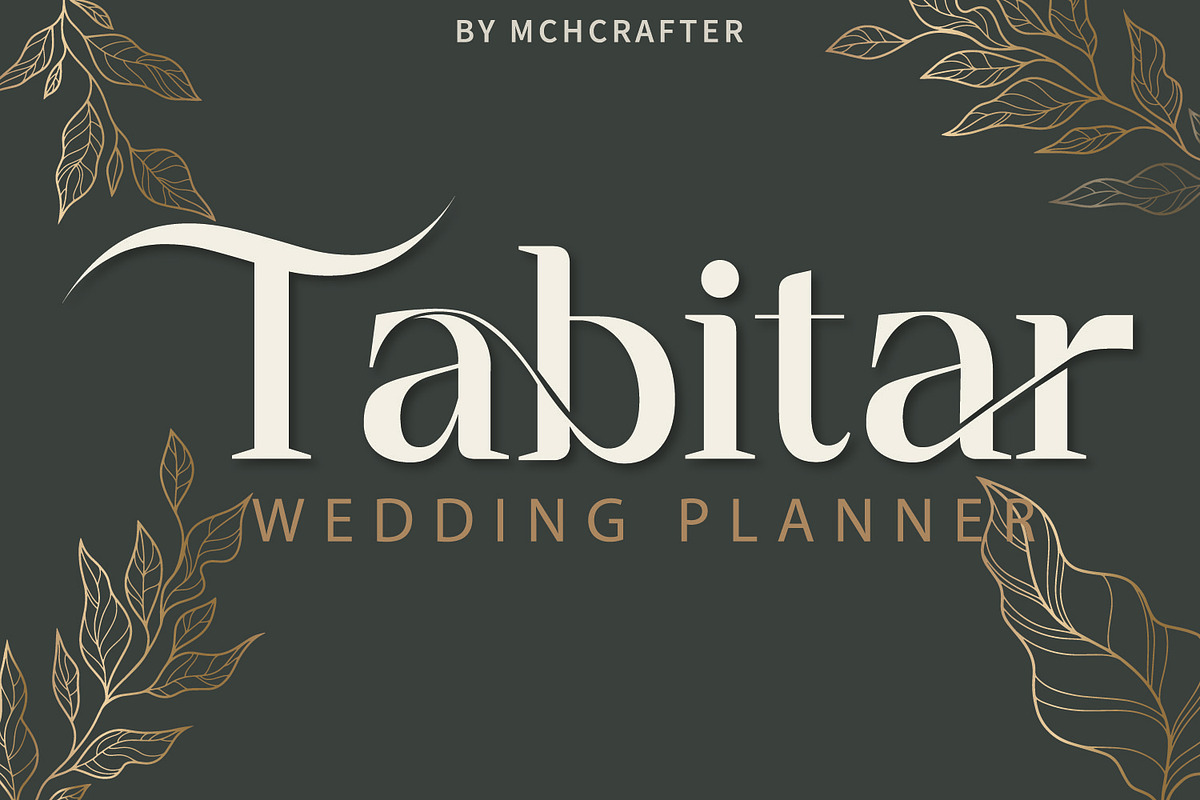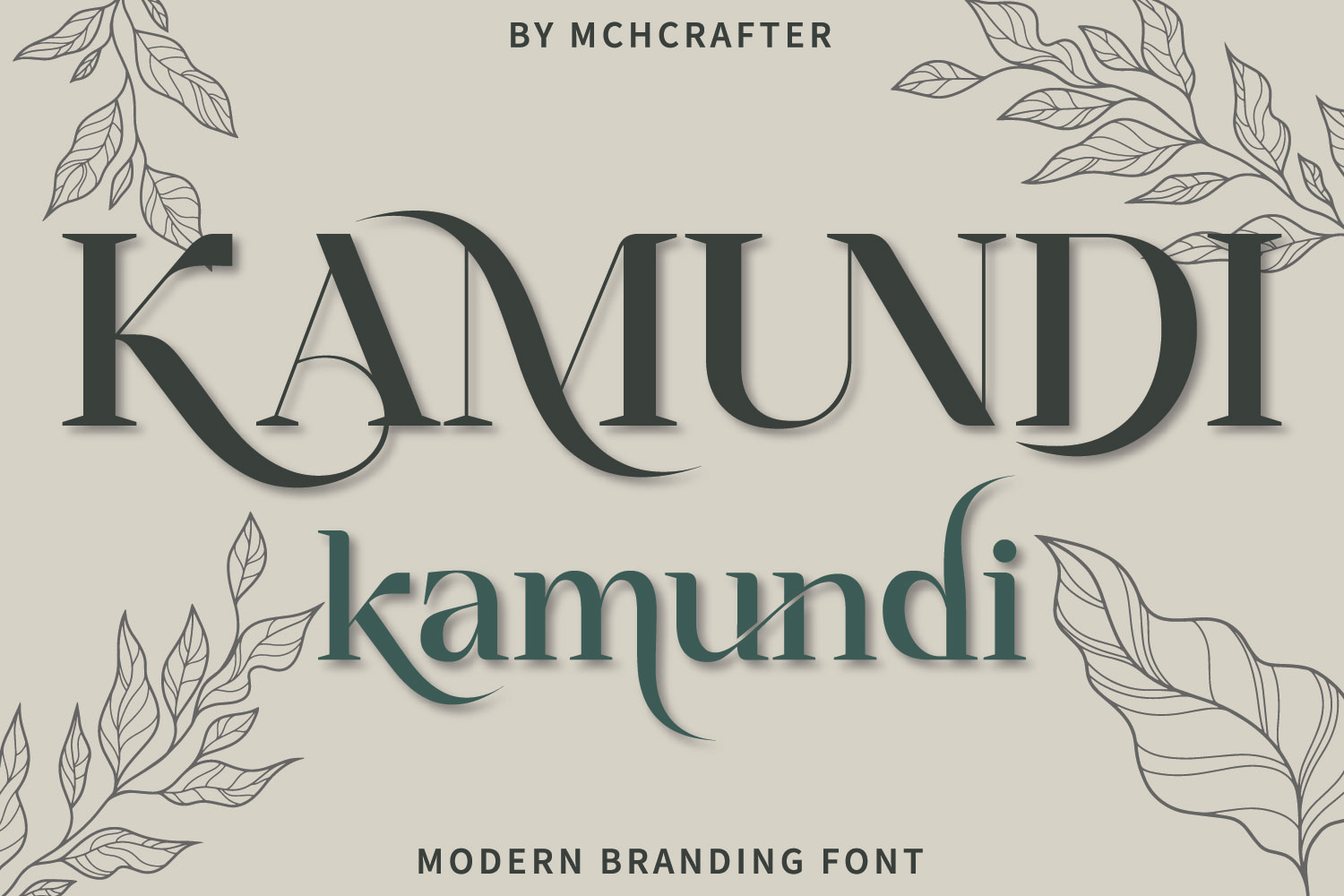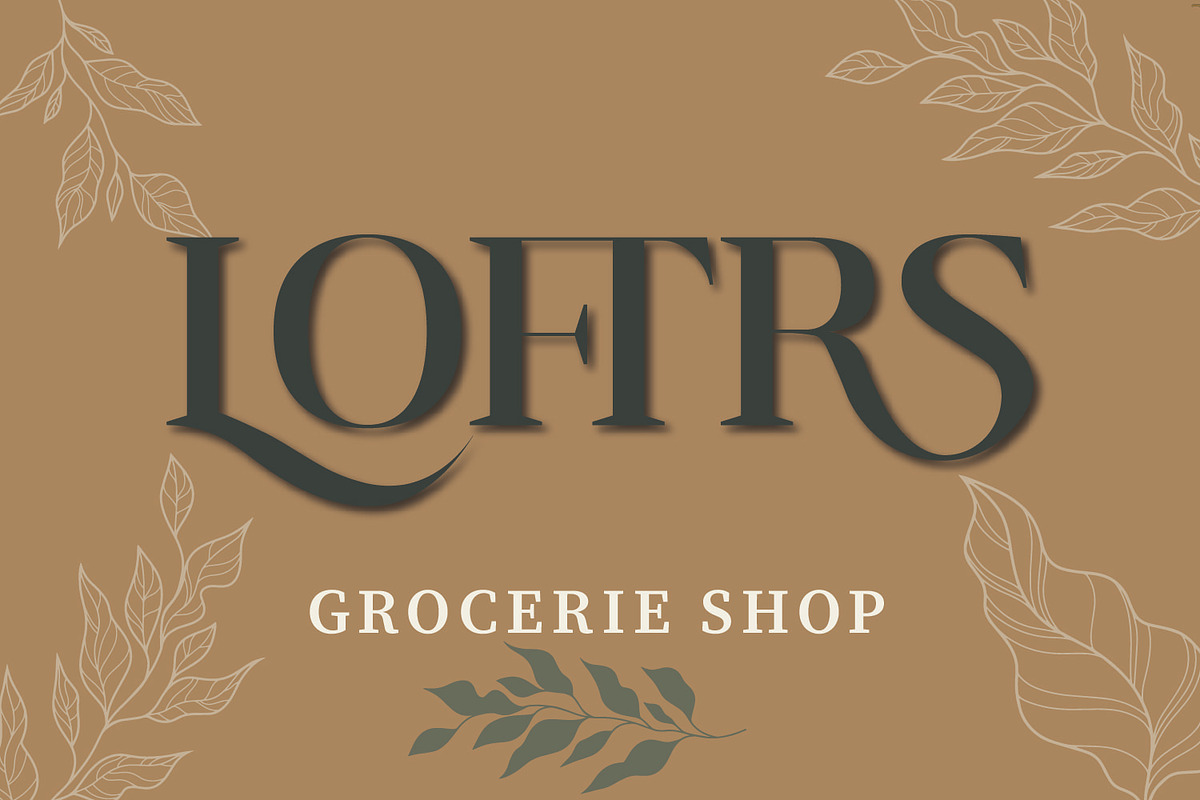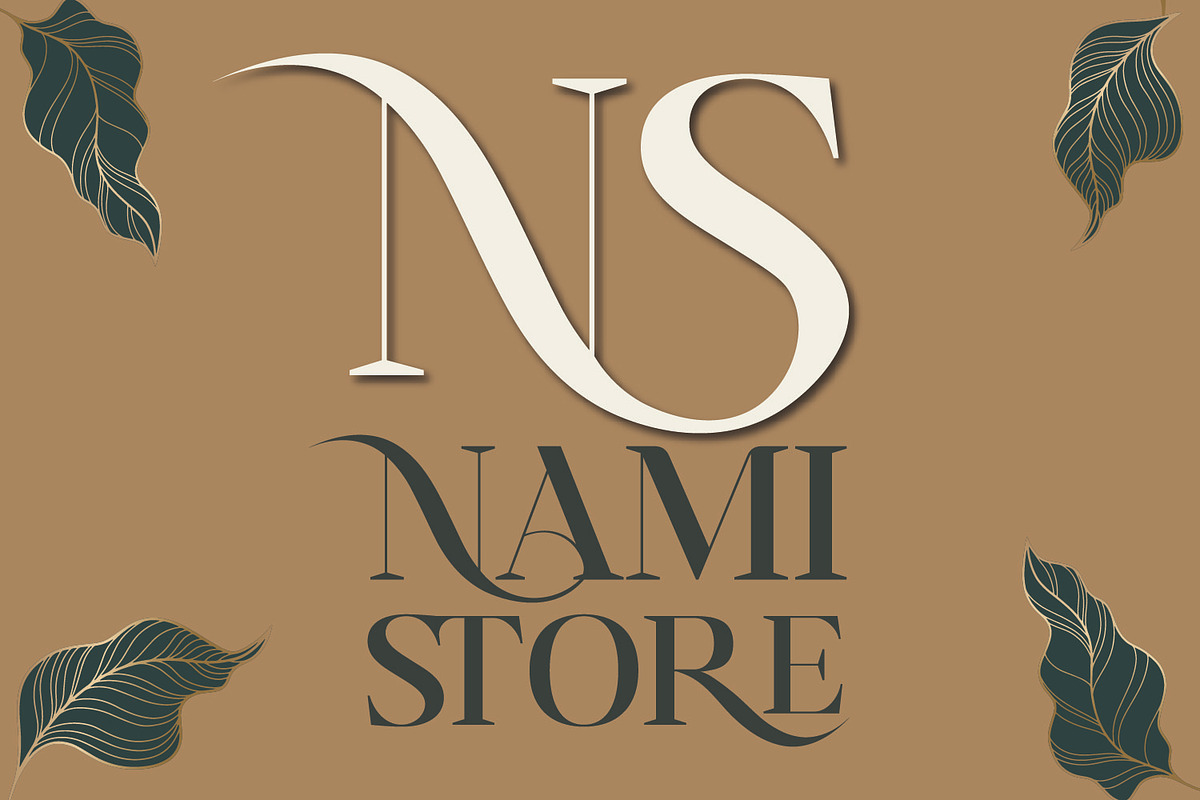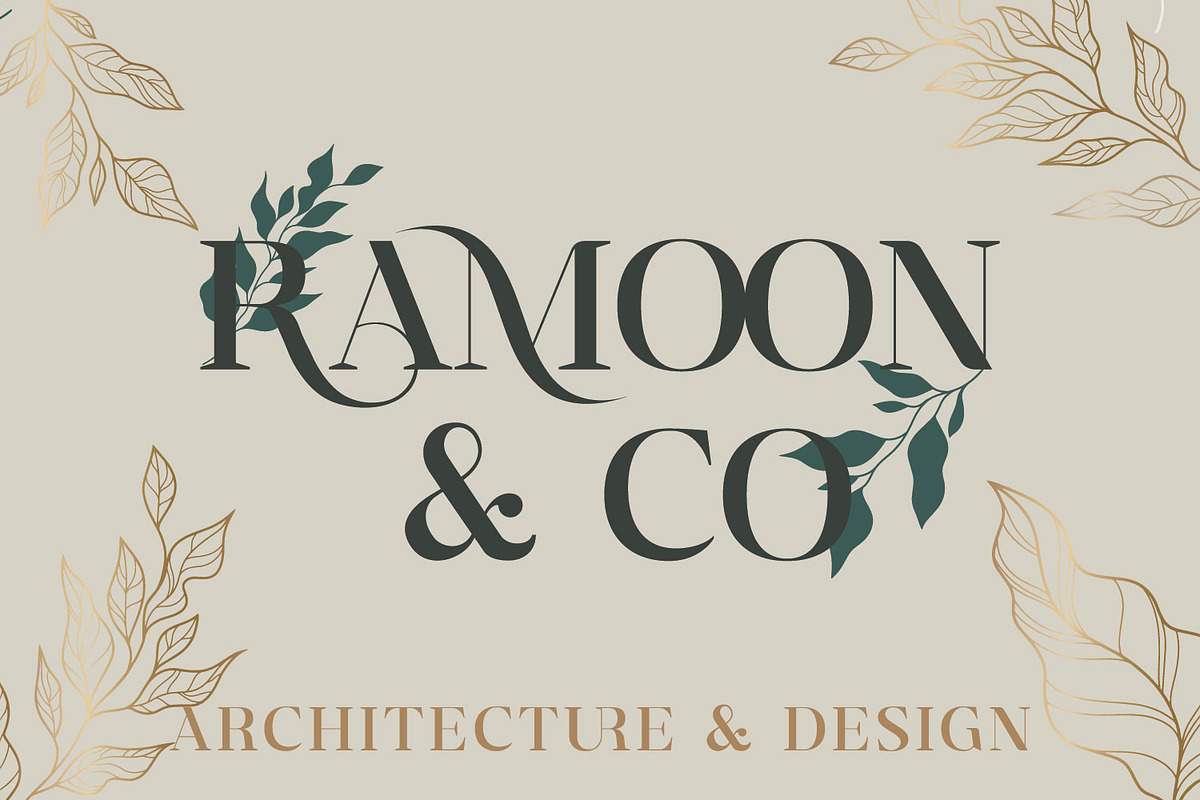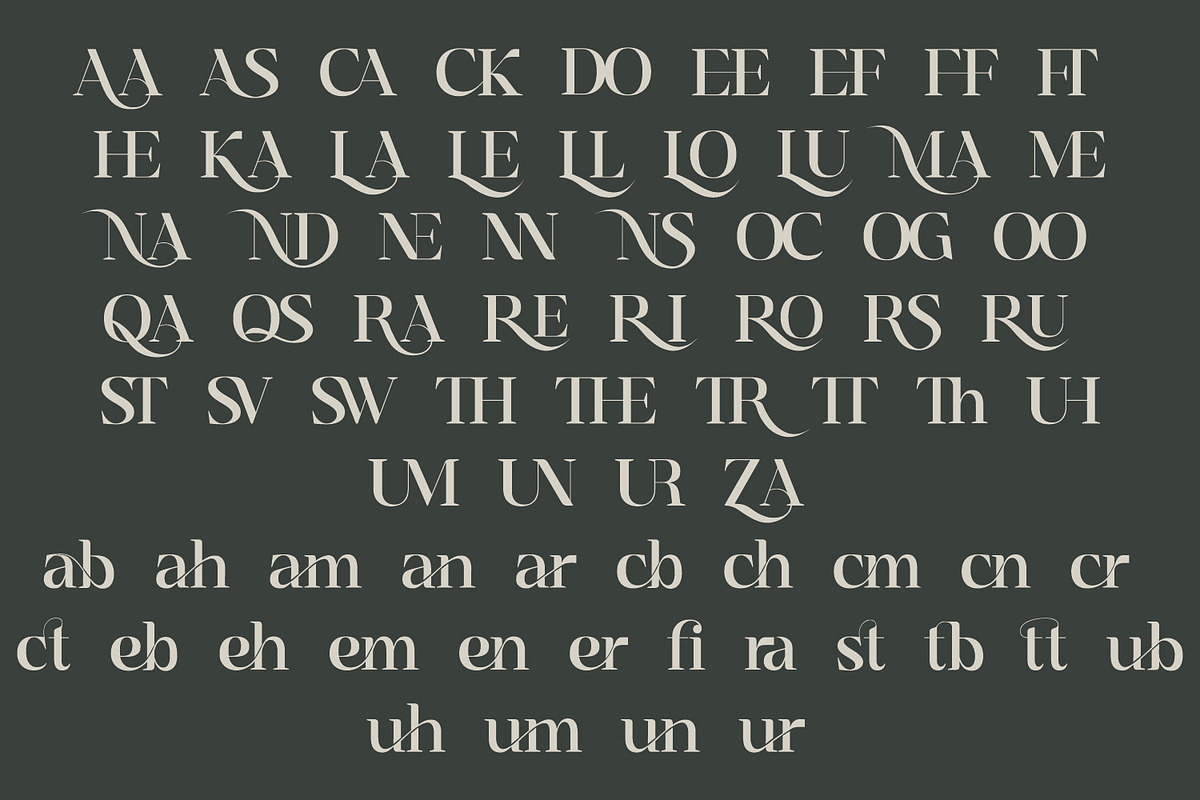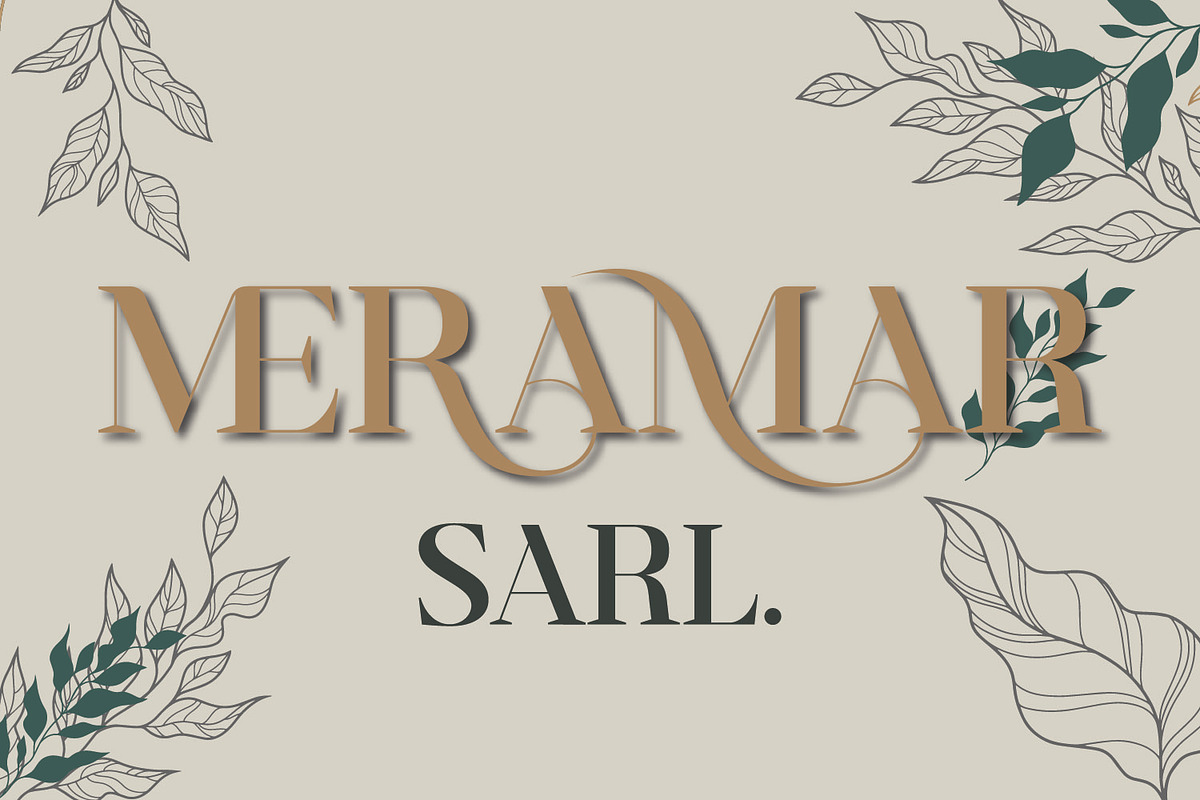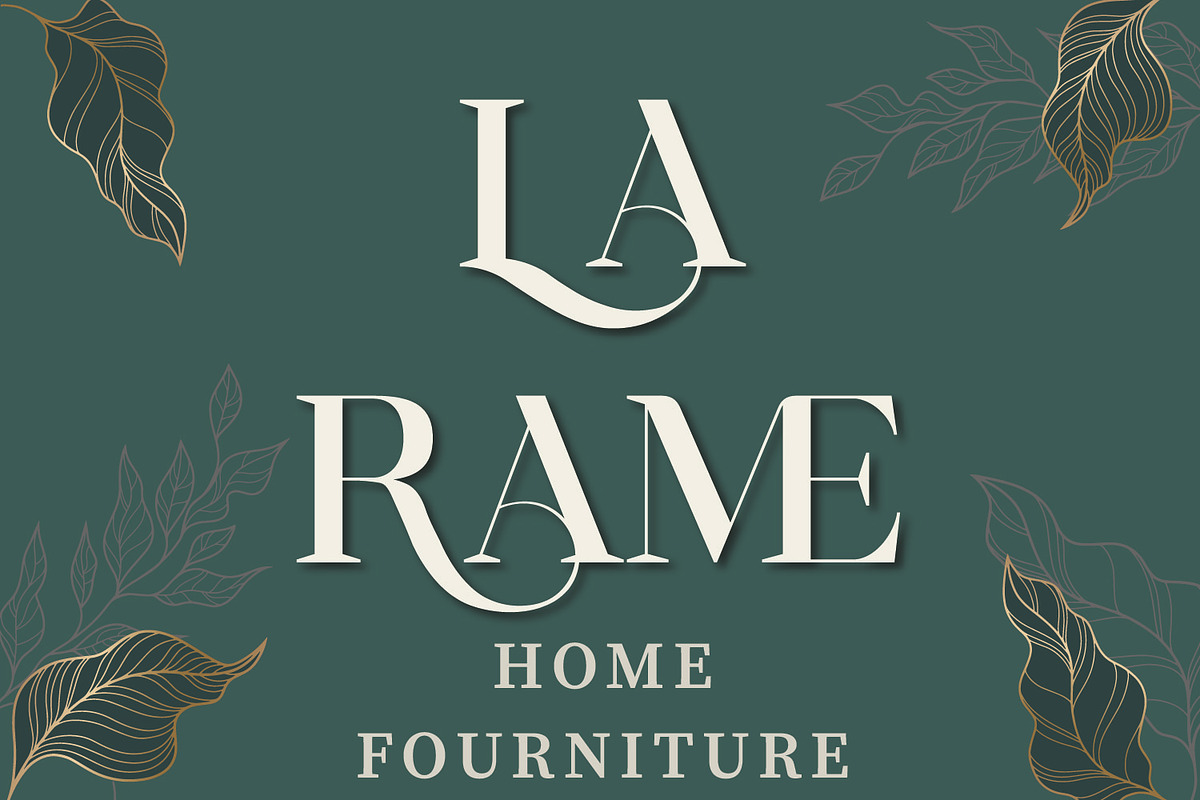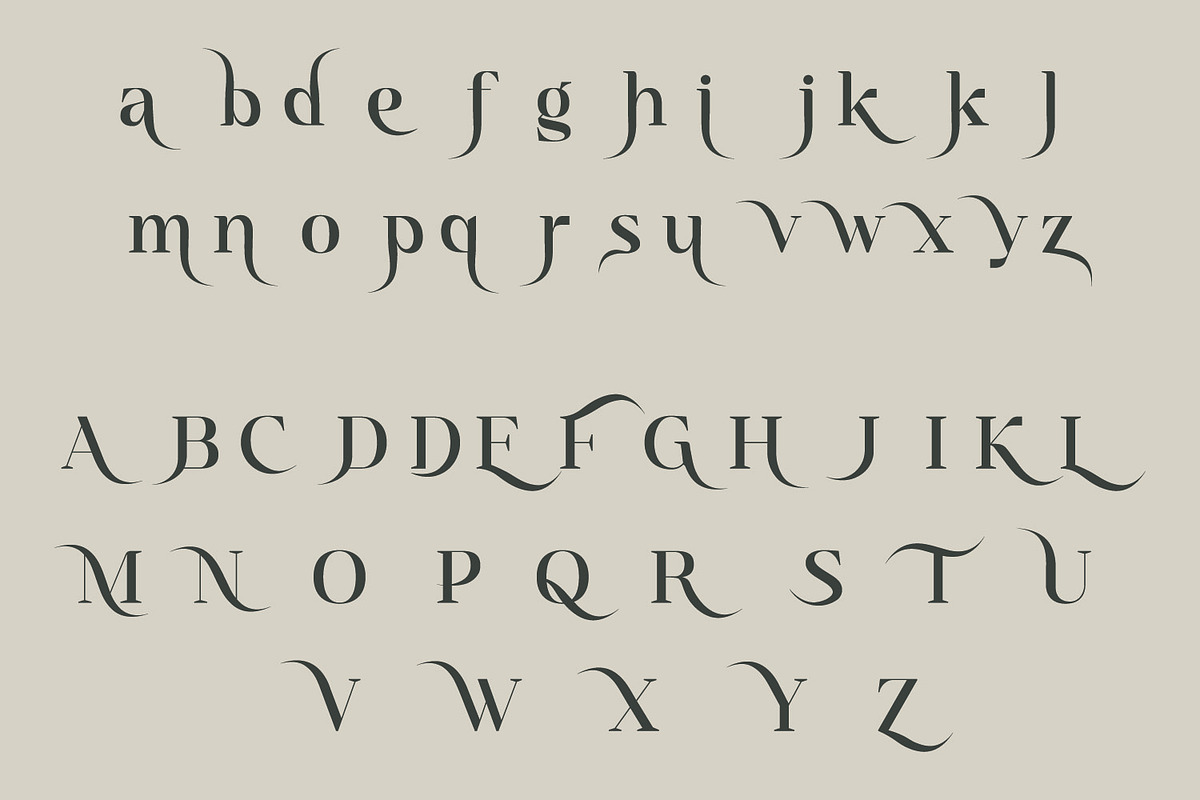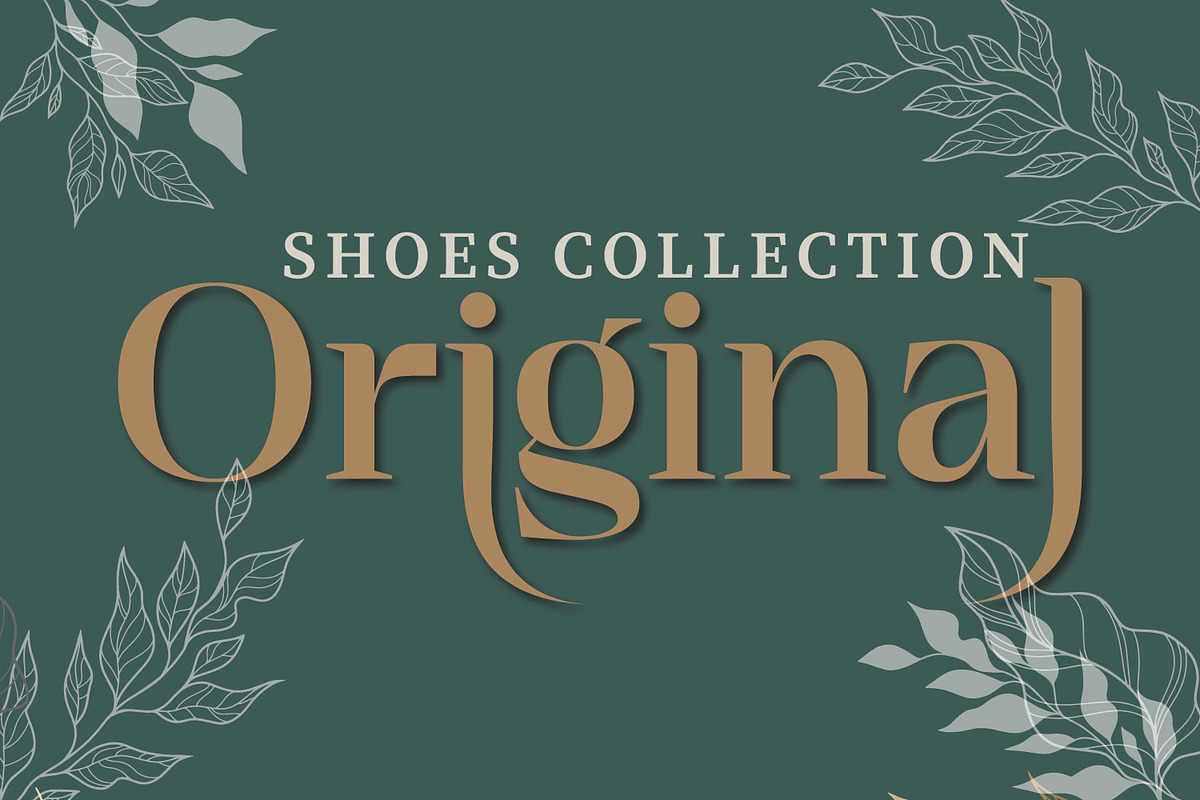
Kamundi | Modern Branding Typeface
Kamundi Font is a Modern Stylistic Serif typeface A new serif that we created specially for branding needs, with extra ligatures and alternates in a unique shape just to add value to your brand. It so nice to leverage designer or product owner that need solutions to make their design look more stylish and modern. And specially for Kamundi Font , We prepared all the ligatures, and the alternates characters to help you create unlimited variations for your creative needs.
A wide range of useful glyphs are included – see preview image of all glyphs.
Kamundi Font Font Font includes:
- All uppercase & lowercase letters
- All numbers 0-9 & Punctuation
- Multiligual Letters